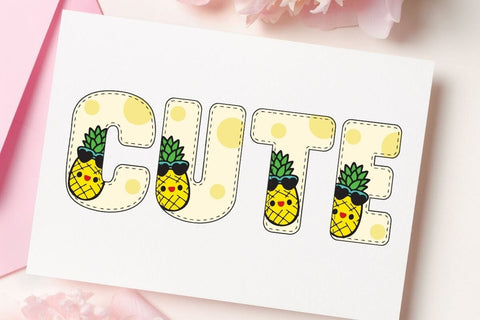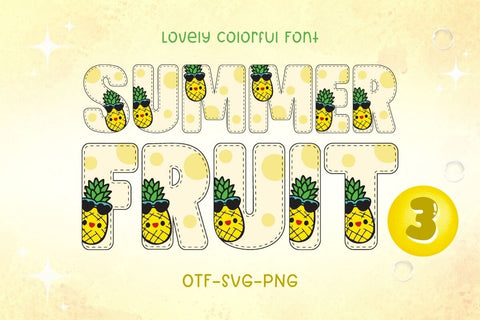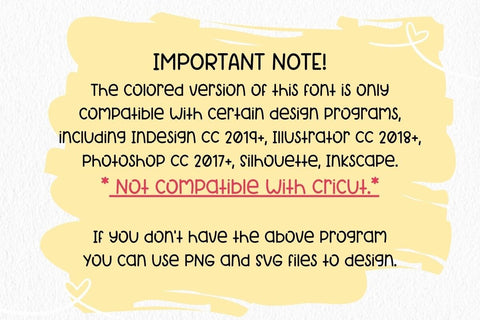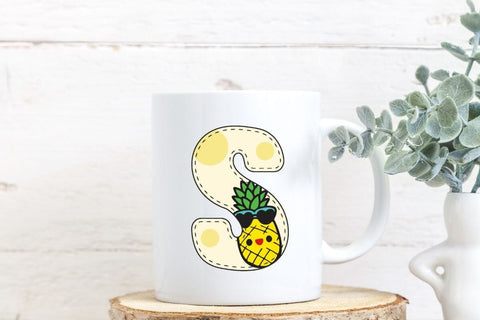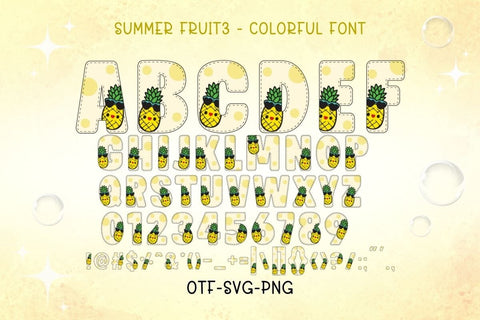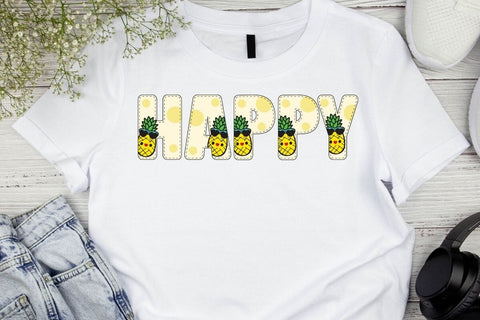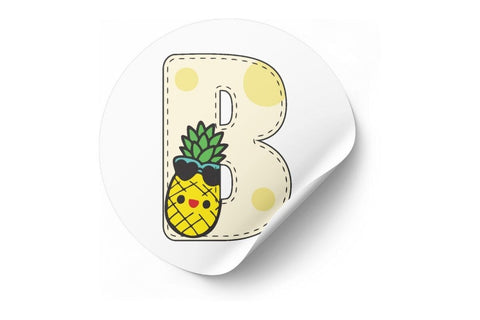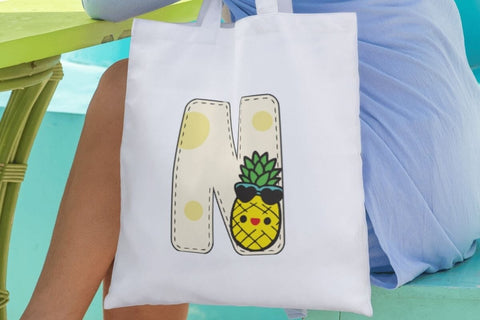
Summer Fruit 3 - Color Font
Summer Fruit3 is a charming colorful font with vibrant colors and adorable Pineapple cartoons as patterns on the characters, creating a unique and eye-catching design. This font is perfect for all your summer fruit-themed projects, enabling you to design products such as banners, content, mugs, cards, shirts, stationery, social media posts, and much more.